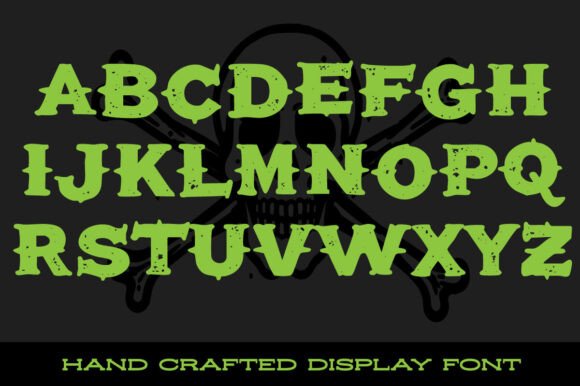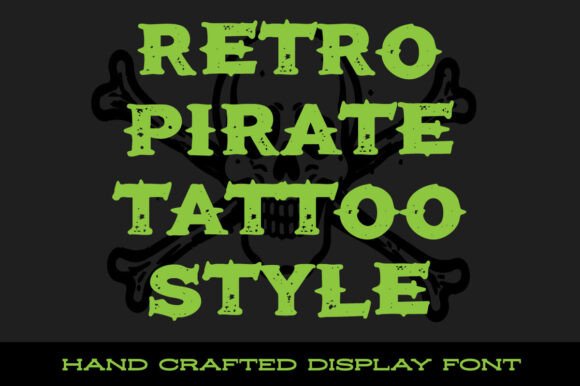
Introduction to Skullywag Font
Skullywag is a bold, weathered font inspired by the untamed spirit of the high seas.
With its distressed edges and swashbuckling character, this font captures the grit and mischief of pirate lore Perfect for designs that need a rebellious, adventurous touch, Skullywag brings a bold, sea-weathered aesthetic to maps, posters, and treasure-themed projects.
Key Features of Skullywag Font